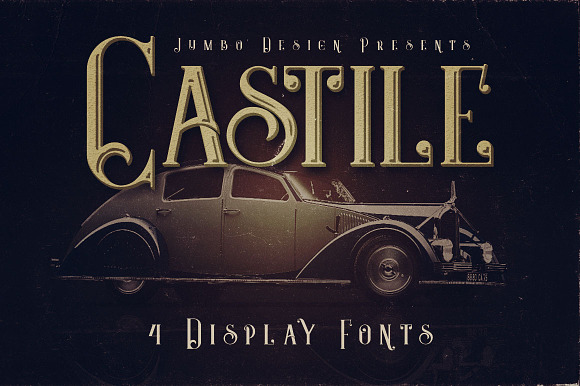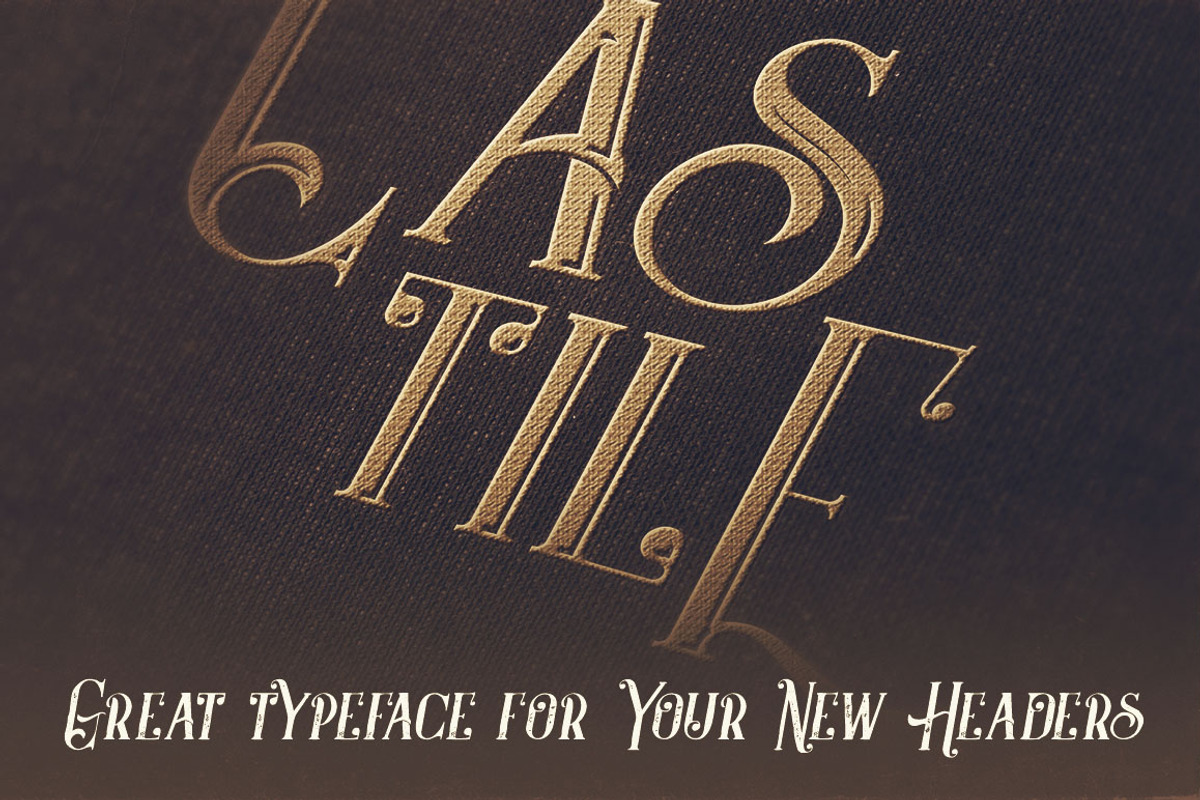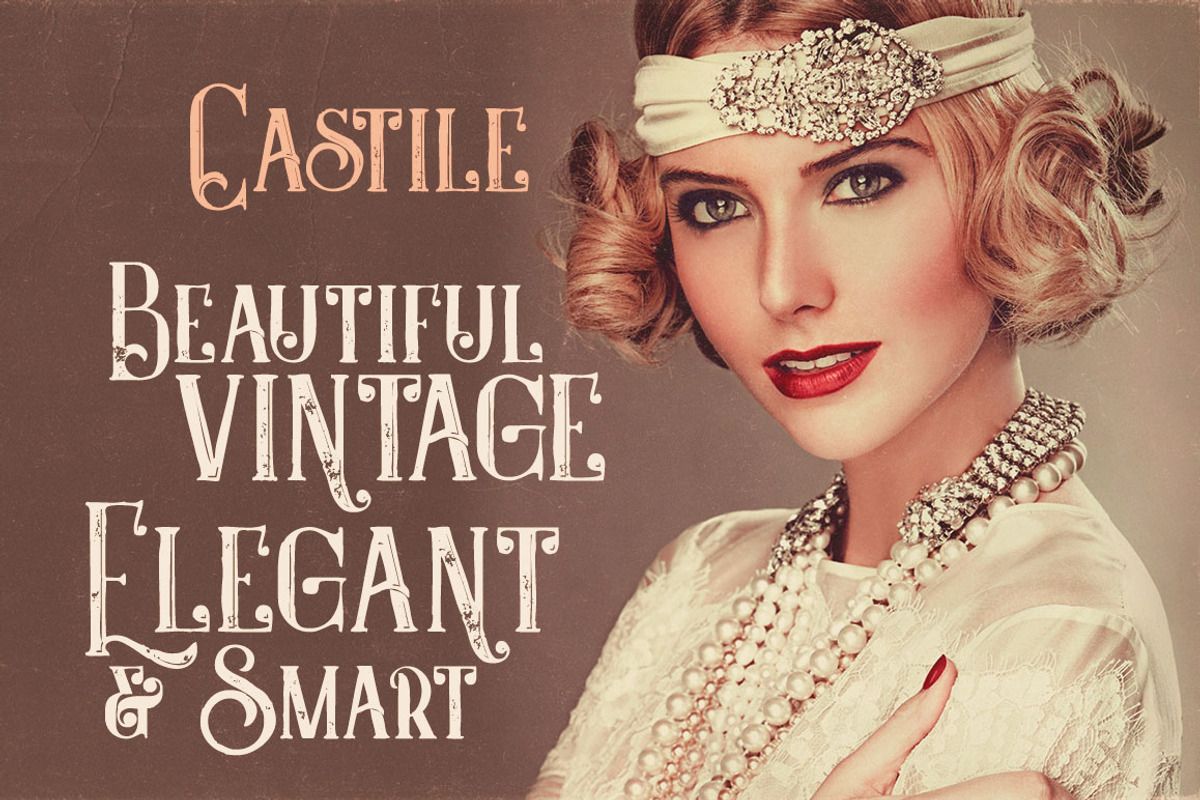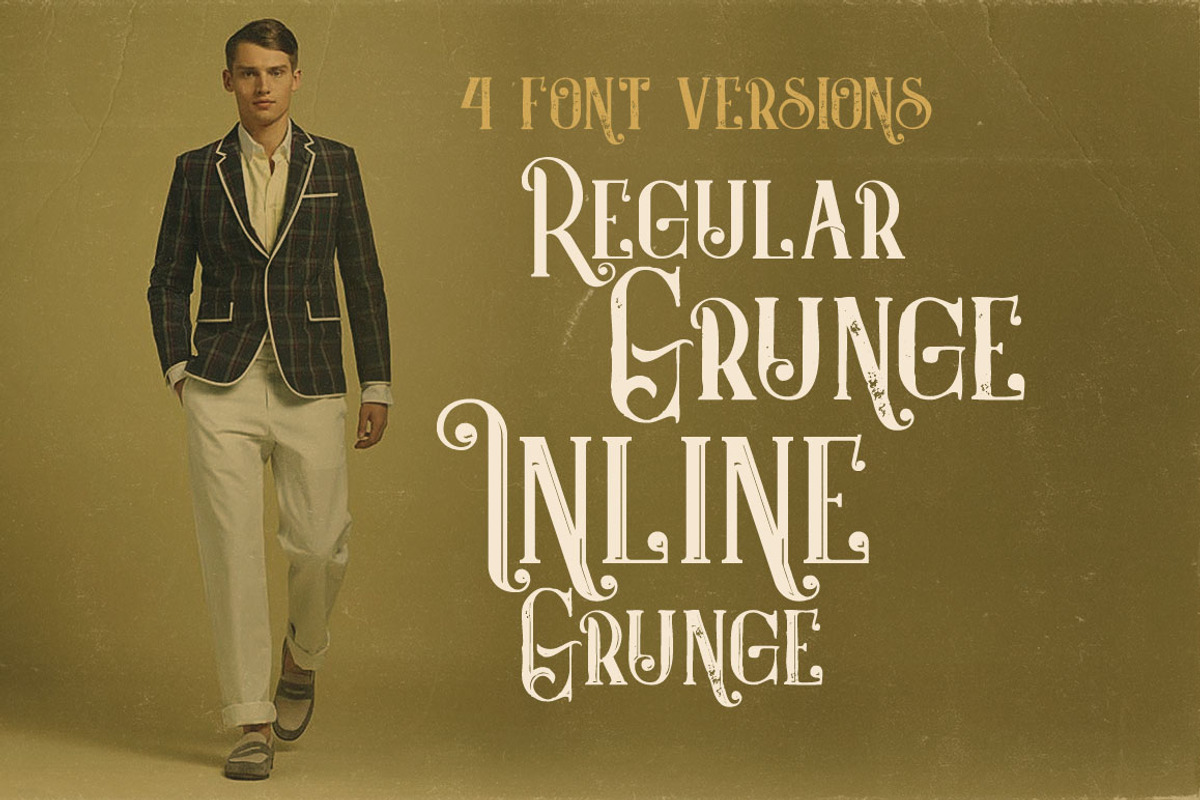
Castile - Display Font
Unique artdeco, vintage or retro style custom sans serif font with 4 styles: regular and grunge, inline and inline grunge!
Castile - Display Font by JumboDesign fits naturally into Branding, posters, packaging, typography.